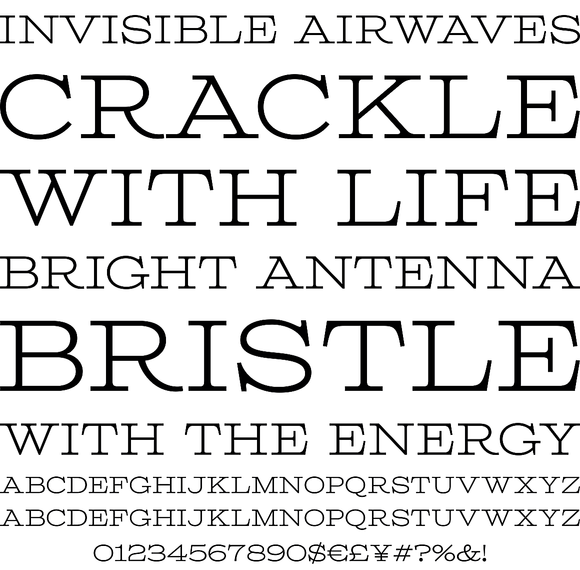
Columbia Titling
Foundry: Typetanic Fonts
Columbia Titling is an titling-caps display family based on wide Clarendon-style wood type and industrial signage design from the late-19th and early-20th Century.
Columbia Titling includes a small set of OpenType features, including both tabular and proportional figures, special superscript ordinal suffixes, underlined superscript alternate letters, and OpenType fractions. Columbia Titling can have a ‘period feel’ depending on its use, but is fresh enough to use in contemporary designs, like magazine headlines, invitations, or stationary.
The typeface — released in four weights — takes its name from the historic S.S. Columbia, a steamboat launched in 1903. Lettering found on the ship's wheelhouse provided initial inspiration for Columbia Titling.
Columbia Titling includes a small set of OpenType features, including both tabular and proportional figures, special superscript ordinal suffixes, underlined superscript alternate letters, and OpenType fractions. Columbia Titling can have a ‘period feel’ depending on its use, but is fresh enough to use in contemporary designs, like magazine headlines, invitations, or stationary.
The typeface — released in four weights — takes its name from the historic S.S. Columbia, a steamboat launched in 1903. Lettering found on the ship's wheelhouse provided initial inspiration for Columbia Titling.